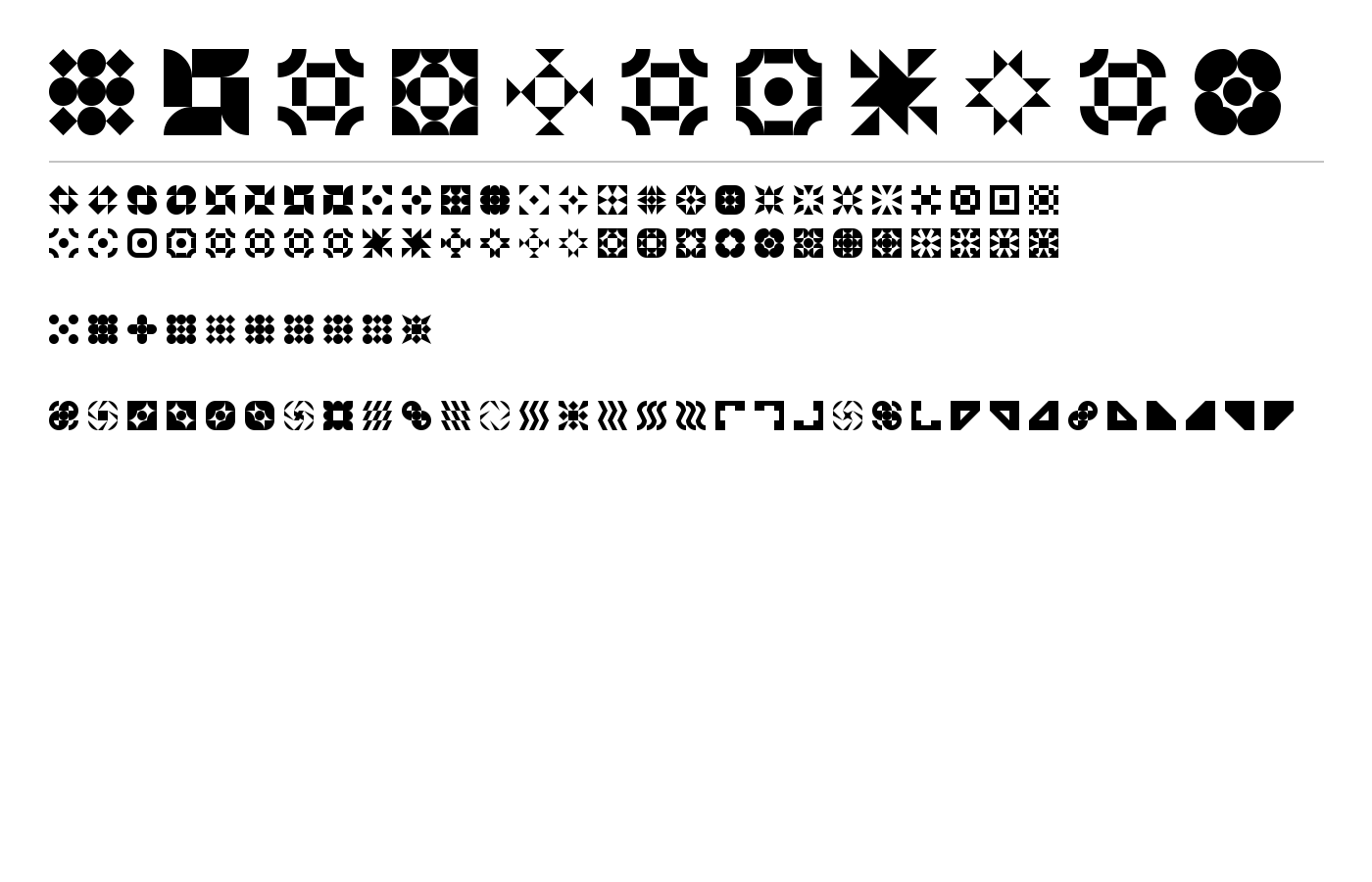
5Geomedings is a highly geometric, decorative dingbat font that features bold, solid shapes arranged into symmetrical patterns and motifs. Its heavy weight and tightly packed forms create a striking visual impact, making it ideal for eye-catching logos, graphic design elements, and creative branding projects. This font’s unique style adds a modern, abstract feel perfect for artistic and contemporary uses rather than traditional text applications.
5Geomedings Font
About 5Geomedings Font